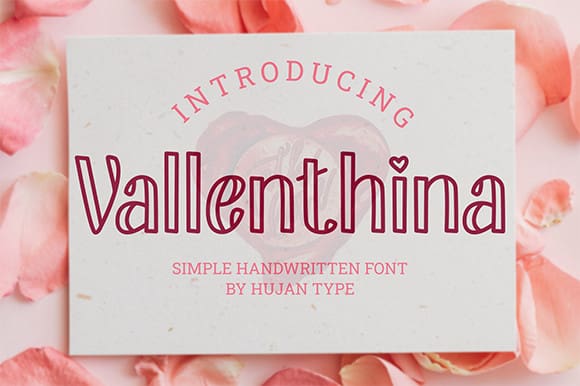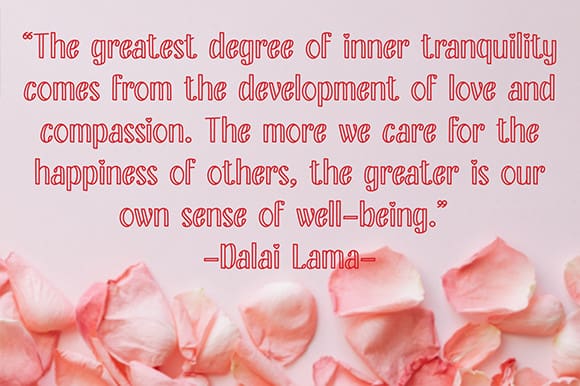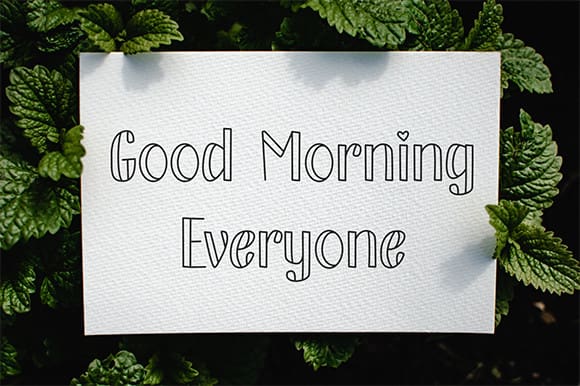
Vallenthina Display Font
Vallenthina Display Font is simple style letters are perfect for wall displays, wedding invitations, social media post logos, advertisements, product packaging, product designs, labels, photography, watermarks, invitations, stationery, and any project that requires handwritten taste.